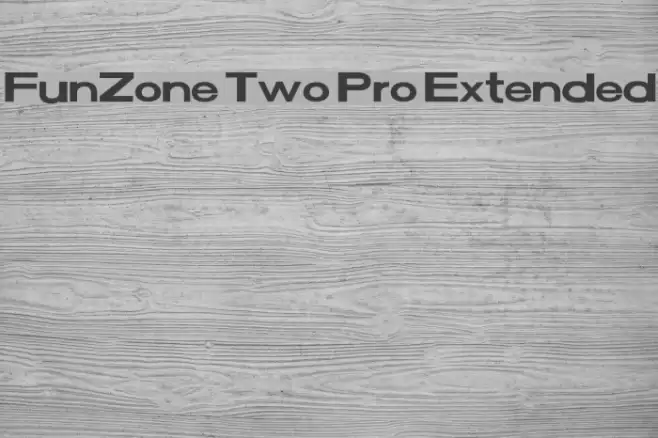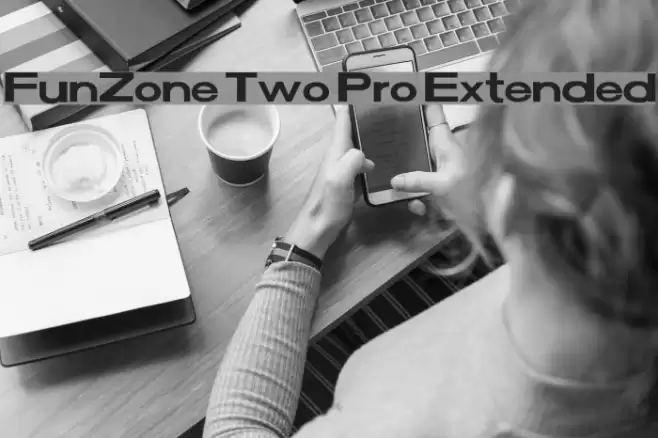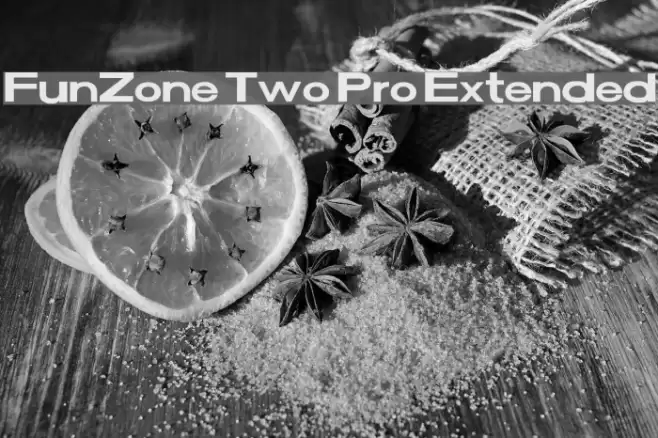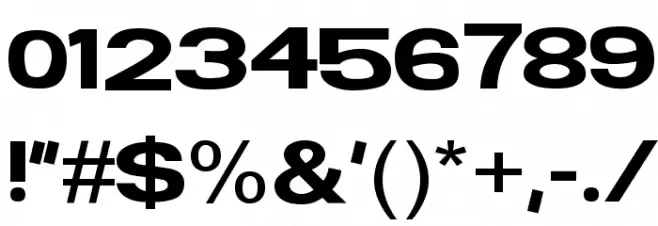
FunZone Two Pro Extended Font
FunZone Two Pro Extended Description
This typeface features a bold and modern design with clean, geometric lines. The uppercase letters are uniform in height, creating a strong visual impact. The lowercase letters maintain a consistent style, with rounded edges that add a touch of softness to the overall appearance. The numerals are clear and easy to read, matching the boldness of the alphabet. Special characters are well-integrated, maintaining the font's cohesive look. This font is versatile, suitable for various design projects that require a contemporary and assertive aesthetic.
A bold, modern typeface with geometric lines and rounded edges from Uncategorized fonts.
- Proposed Projects: Ideal for branding, advertising, headlines, and digital media projects.
- Width: Expanded
- Use Case: Headlines, Logos, Advertising